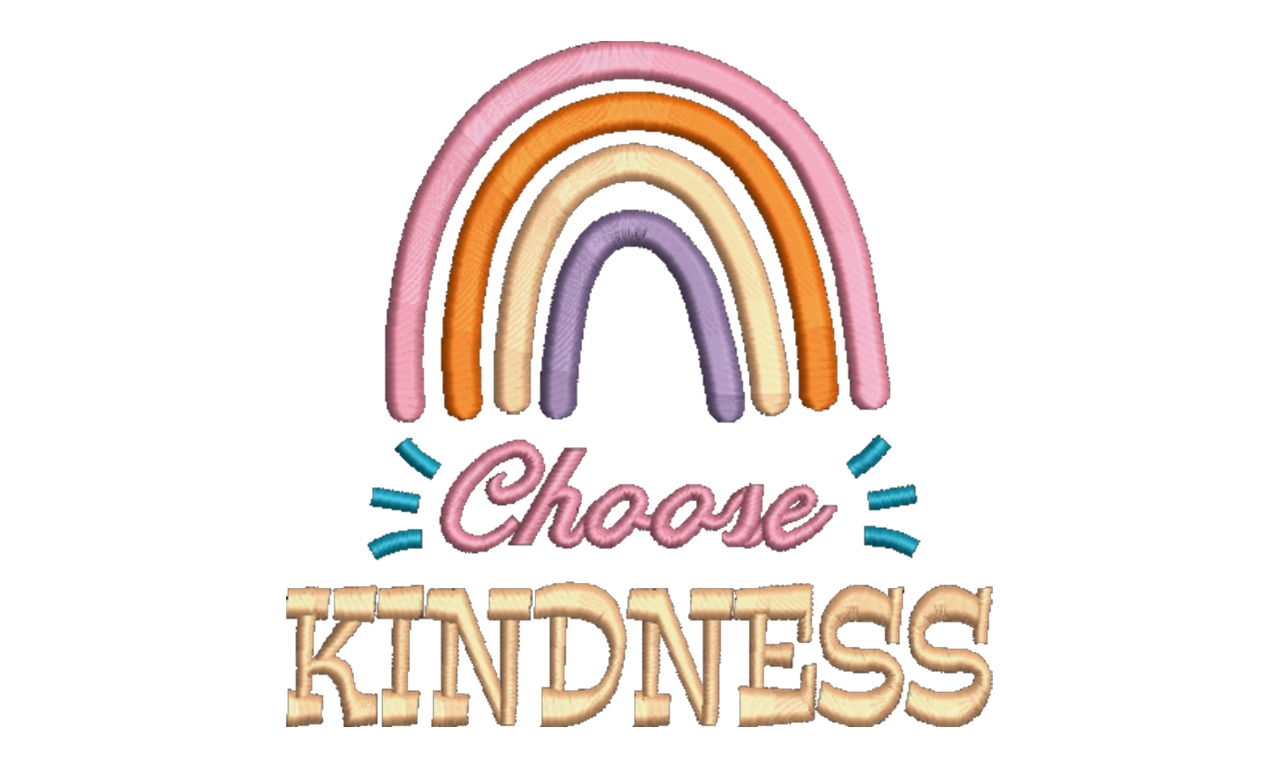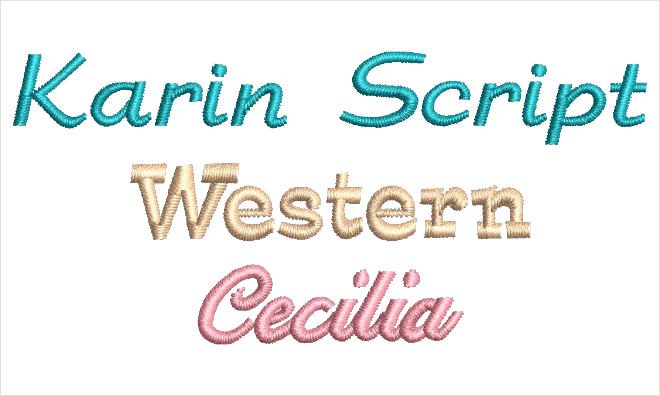
Font Pack #23 - Elegant and Bold
This collection is one of everyone’s favorite! The script gives an elegant hand drawn look that is bold but not too bold and easy to read A bold serif font with a slight slant is good for medium height lettering. To round this pack out we have added a vintage slanted semi-bold script. Elegant and bold, the name says it all!
Karin Script
Use this font for special ocassions or to give that elegant look.
Western
Works good for medium height lettering
Cecilia
Perfect for single name projects when you want a bold script.
This collection is one of everyone’s favorite! The script gives an elegant hand drawn look that is bold but not too bold and easy to read. A bold serif font with a slight slant is good for medium height lettering. To round this pack out we have added a vintage slanted semi-bold script. Elegant and bold, the name says it all!